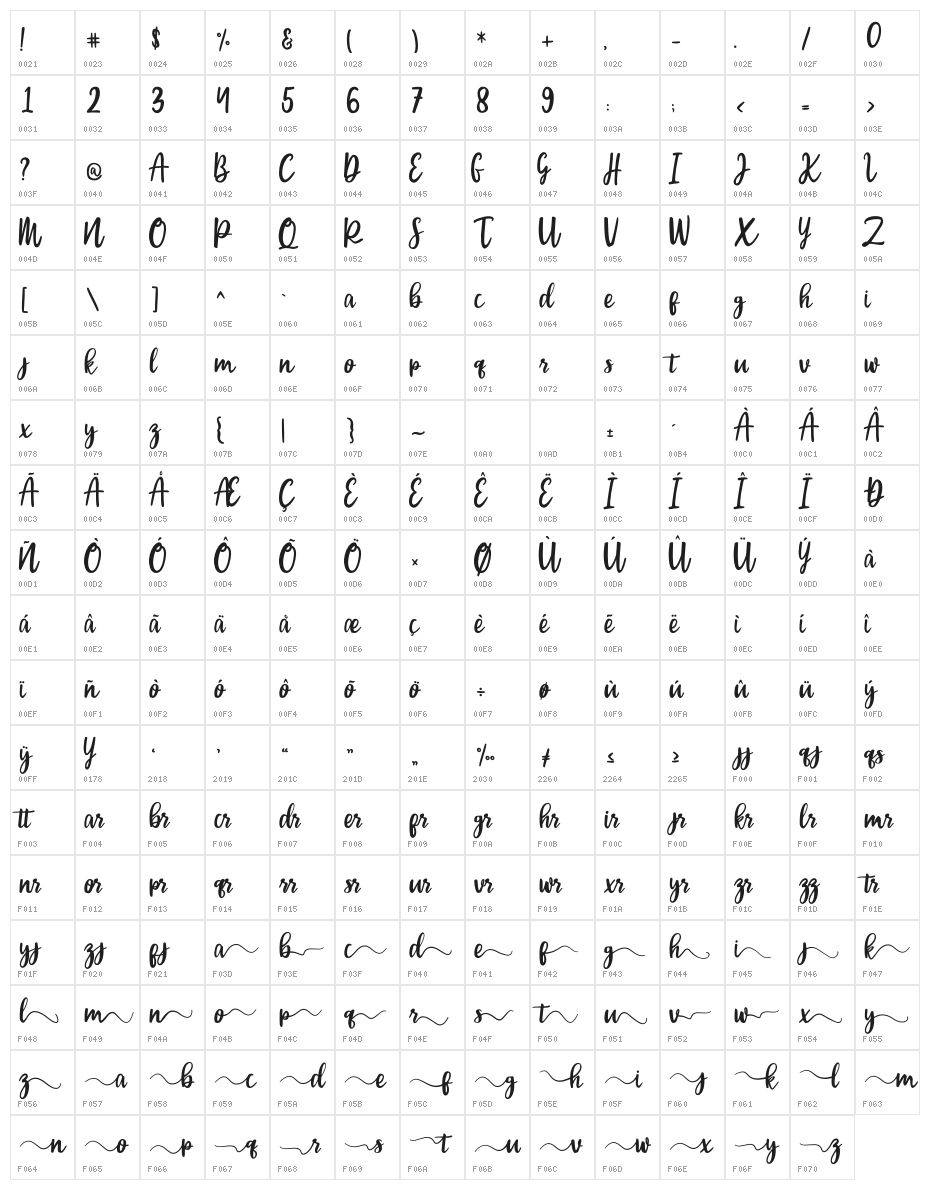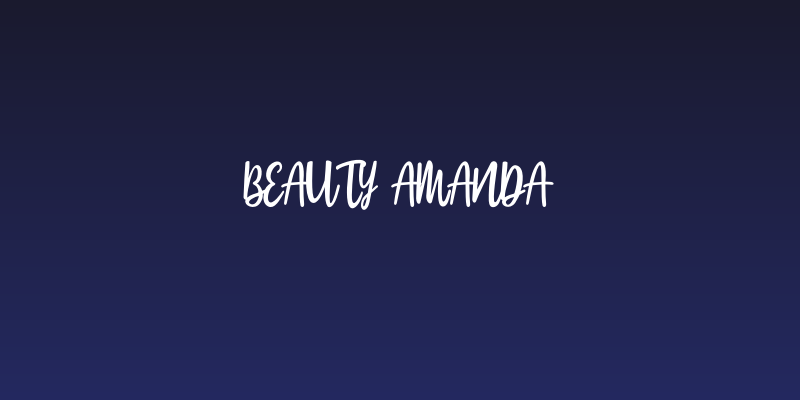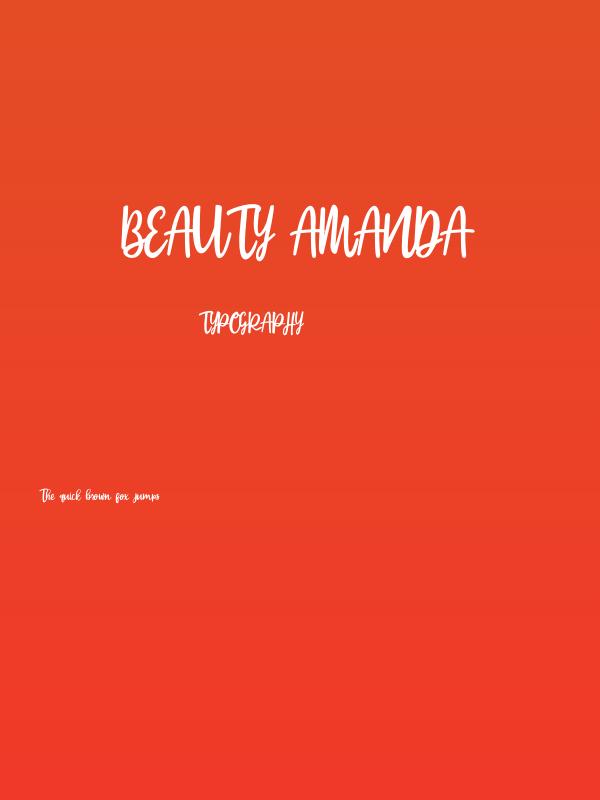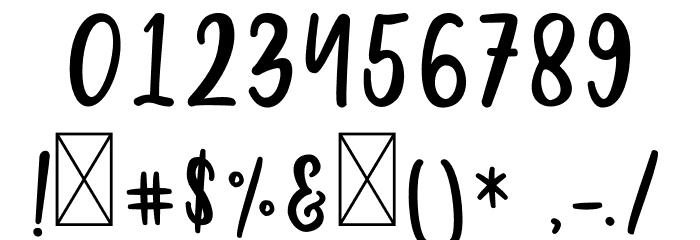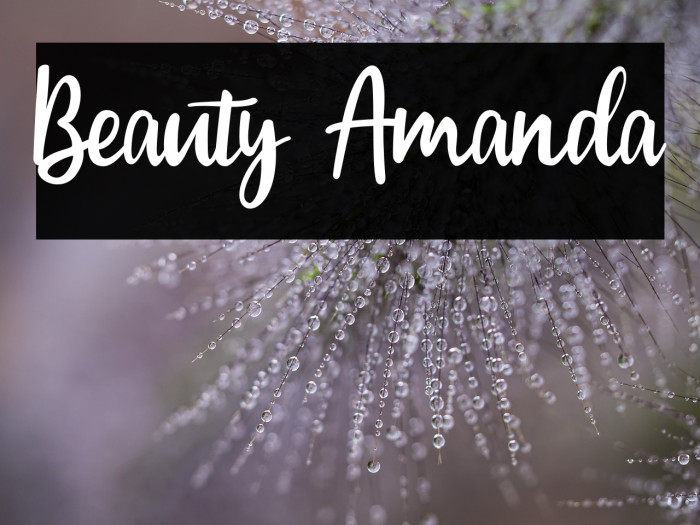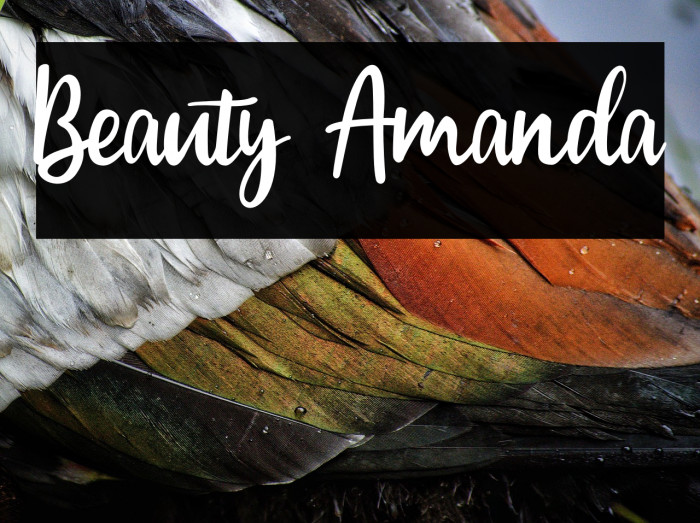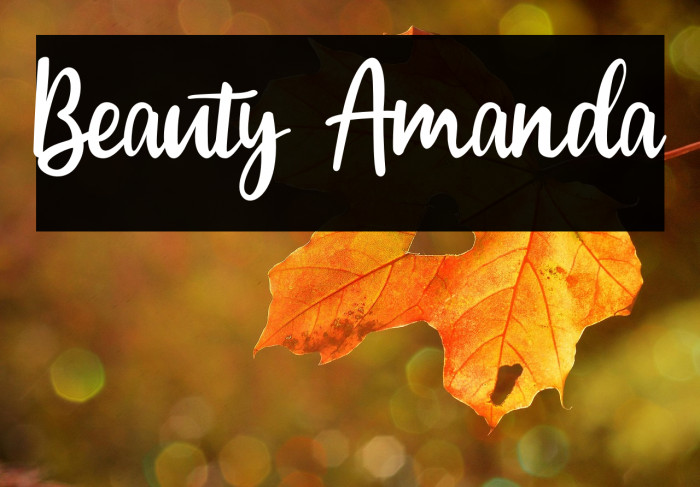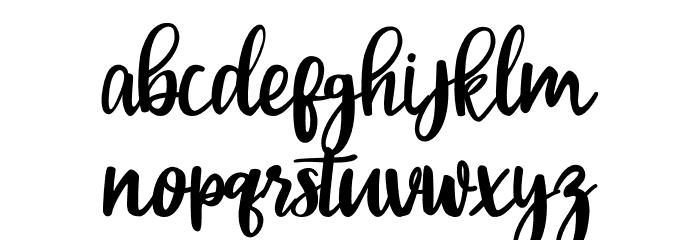
Beauty Amanda Font
Beauty Amanda Description
This font features a lively and expressive handwritten style, characterized by its fluid and connected letterforms. The uppercase letters are bold and dynamic, with a playful yet elegant flair. The lowercase letters maintain a consistent flow, enhancing readability while preserving the font's artistic nature. Numbers are clear and distinct, matching the overall style of the alphabet. Special characters are creatively designed, adding to the font's versatility. The strokes are thick, providing a strong visual impact, and the overall appearance is both modern and stylish, making it suitable for a variety of creative projects.
| Proposed Projects | Ideal for branding, invitations, greeting cards, and social media graphics. |